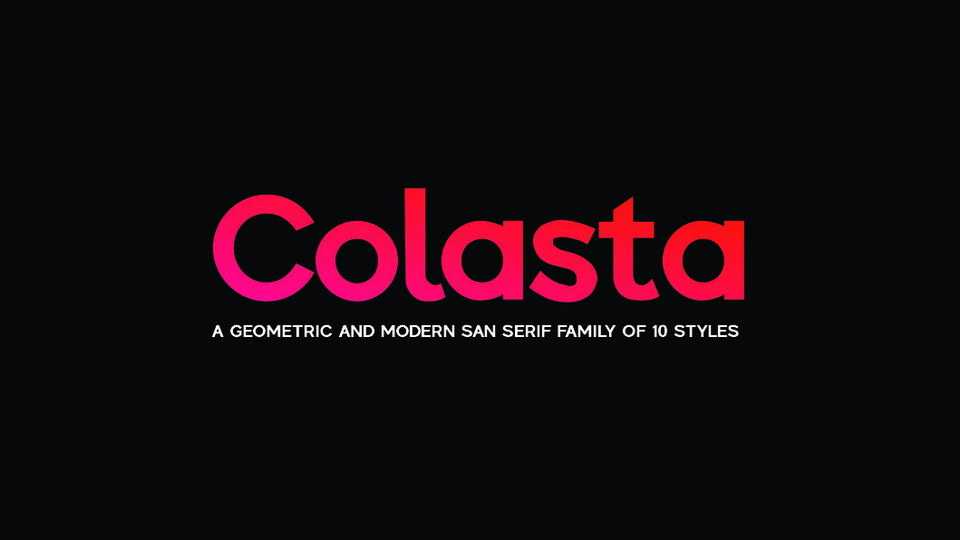
Download Colasta typeface, a geometric sans serif font family that brings a fresh, modern look to any design. Colasta font is very suitable as text with displays for various kinds of branding, advertisements, posters and more.
Designer: Reyrey Blue